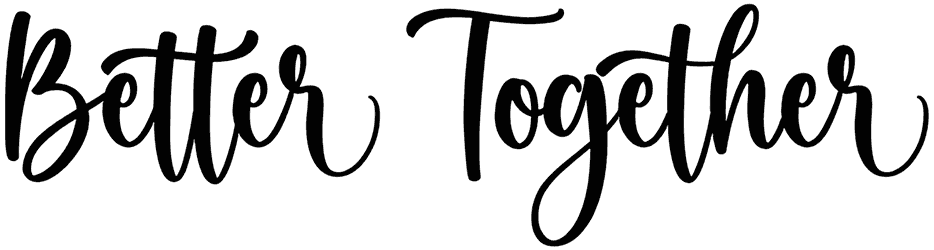
Better Together Font
Nothing can make a design more beautiful or personal than Better Together. This calligraphy font has a traditional style with exaggerated twists that can be an essential decorative element in your content.
Using this font, you can leave many paths for implementing ideas in front of your creative spirit and create a modern, shiny, and elegant touch in writing. This script font will make your script stand out in social media graphics and website banners.